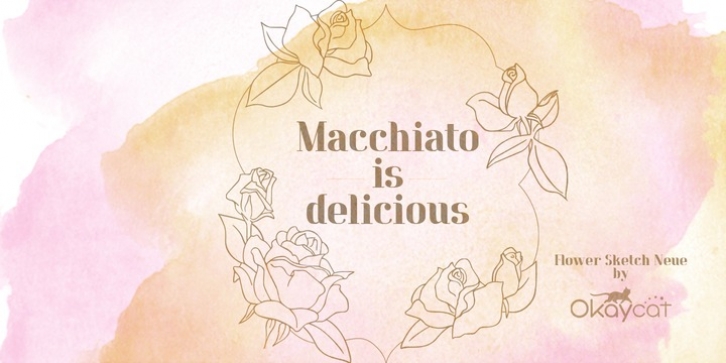
Macchiato was designed by Natsuko Hayashida and published by Okaycat. Macchiato contains 1 style.
Okaycat presents 'Macchiato'. This playful casual font is fashion forward. Elegant simple line serifs pair well with line drawings or simple ink drawings.